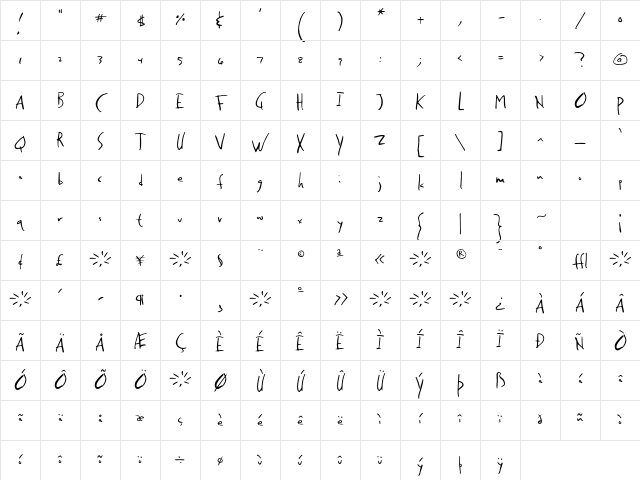
Rats Regular Free Font
Rats Regular
Design Context for Rats
Rats is a composed and adaptable typeface that performs quietly and consistently across a wide range of design contexts.